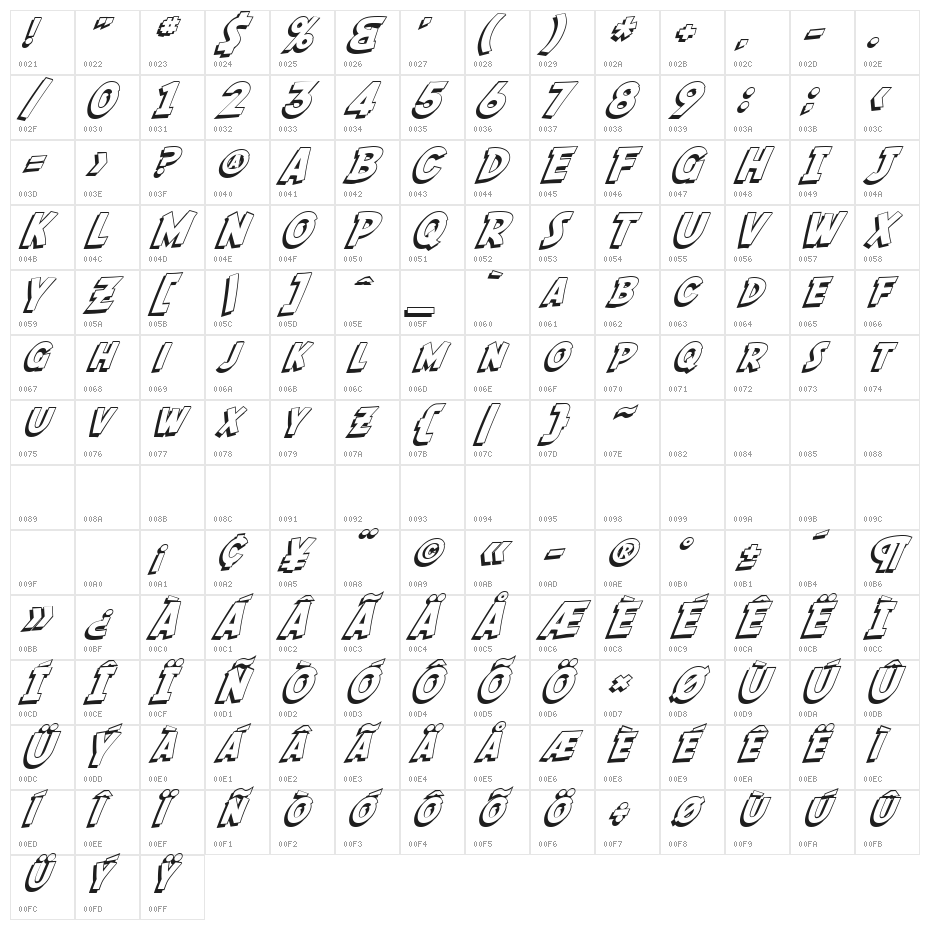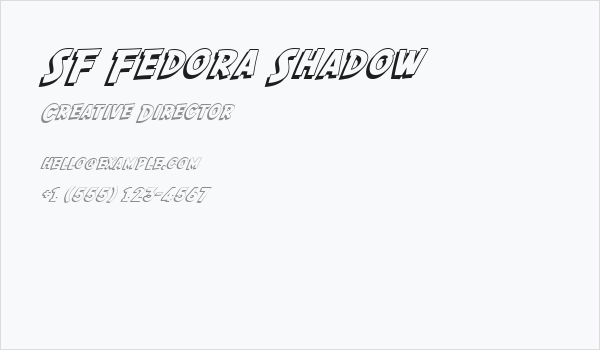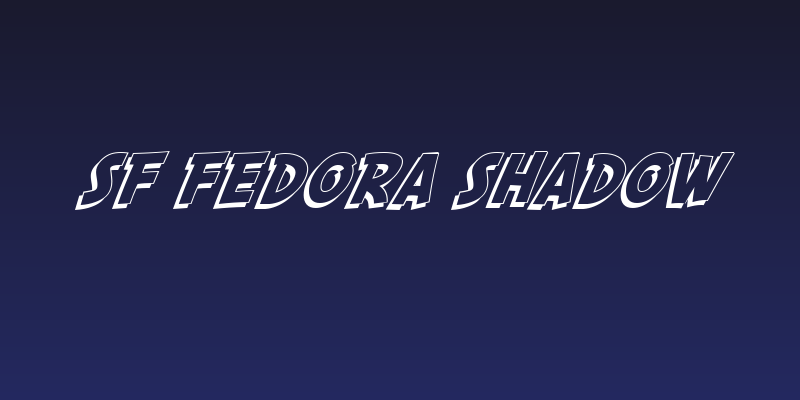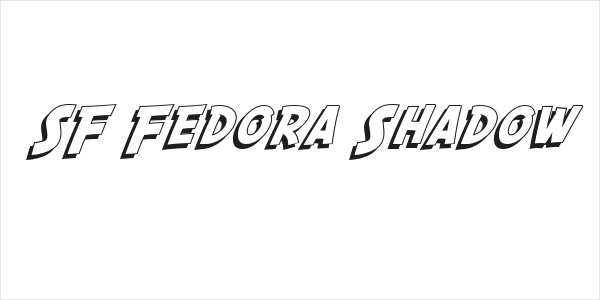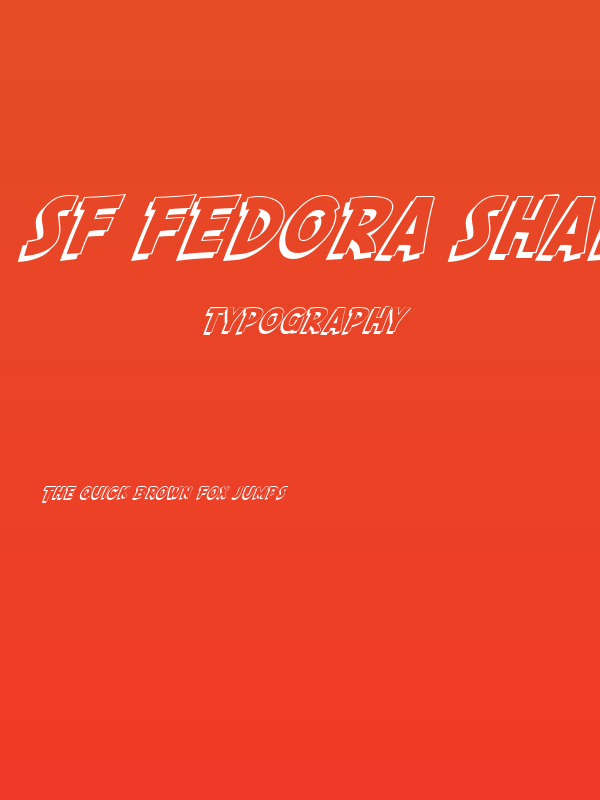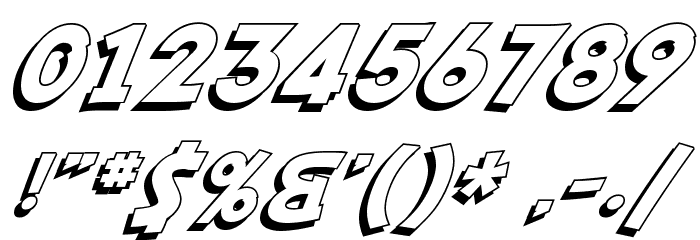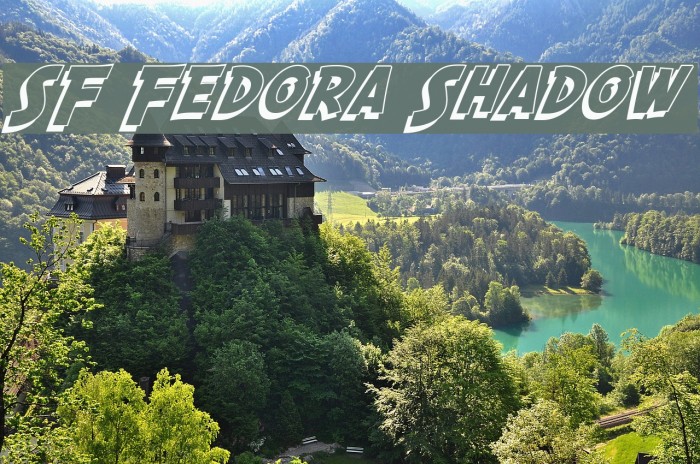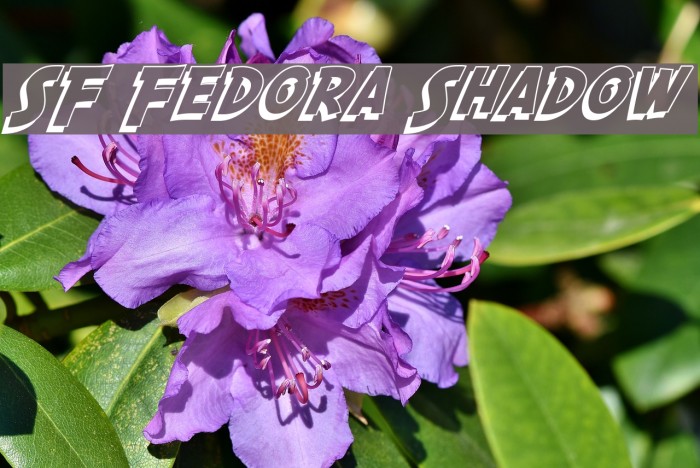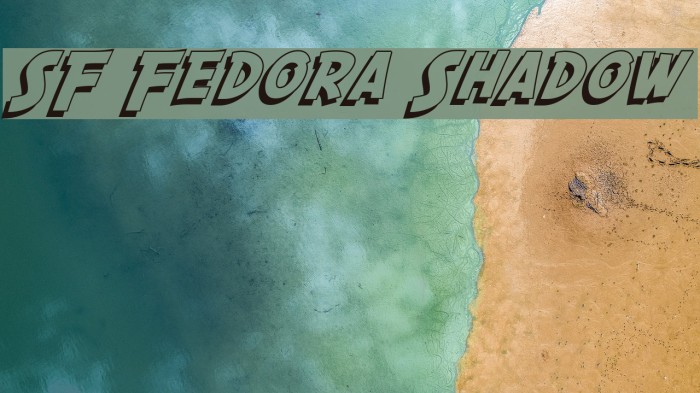
SF Fedora Shadow Font
SF Fedora Shadow Description
This font features a bold, dynamic style with a distinct shadow effect that gives it a three-dimensional appearance. The characters are uppercase with a strong, angular design, emphasizing sharp edges and a sense of movement. The shadowing adds depth, making it ideal for eye-catching displays. The numbers and special characters maintain the same boldness and shadow effect, ensuring consistency across all glyphs. This font is perfect for projects that require a striking and impactful visual presence.
| Proposed Projects | Ideal for posters, headlines, logos, and any design needing a bold, attention-grabbing typeface. |